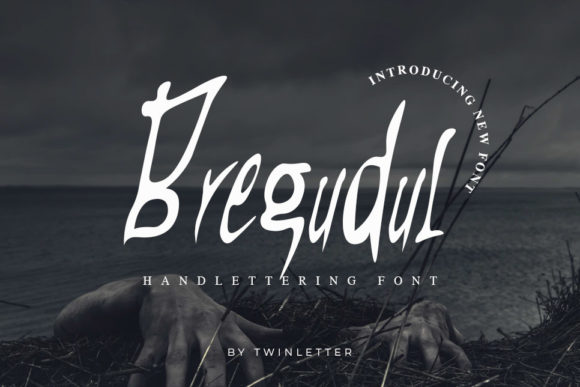
The Spooky Charm of Bregudul Font: A Designer’s Delight
I’ll never forget the night I was working on a Halloween-themed project for a client, and I was struggling to find the perfect font to capture the spooky essence. The design was almost complete, but something was missing – a font that would add a touch of eeriness and whimsy to the project. That’s when I stumbled upon Bregudul Font, a handwritten font with a scary look that instantly caught my attention. In this article, I’ll share my experience with Bregudul Font, its features, and how to make the most of it in your designs.
An Honest Review of Bregudul Font
What I Love About Bregudul Font
• ✨ Unique and quirky design that adds a touch of spookiness to any project
• ✅ Handwritten feel that gives a personal and human touch to your designs
• 🎃 Perfect for Halloween-themed projects, but also versatile enough for other spooky or mystical designs
While Bregudul Font is an excellent choice for spooky designs, there are a few quirks to be aware of:
• 🤔 Limited character set: Bregudul Font might not have all the characters you need, especially for non-English languages.
• ⚠️ Not suitable for body text: Due to its decorative nature, Bregudul Font is best used for headlines, titles, or short paragraphs.
The Backstory of Bregudul Font
Bregudul Font was designed by a talented type designer who wanted to create a font that would capture the essence of spooky, mystical, and eerie designs. The font’s unique and quirky design is inspired by creepy handwriting and ancient manuscripts. The designer’s goal was to create a font that would add a touch of whimsy and personality to any project, while still conveying a sense of eeriness and mystery.
Q: What type of projects is Bregudul Font best suited for?
A: Bregudul Font is perfect for spooky, mystical, or eerie designs, such as Halloween-themed projects, horror movies, or dark fantasy games.